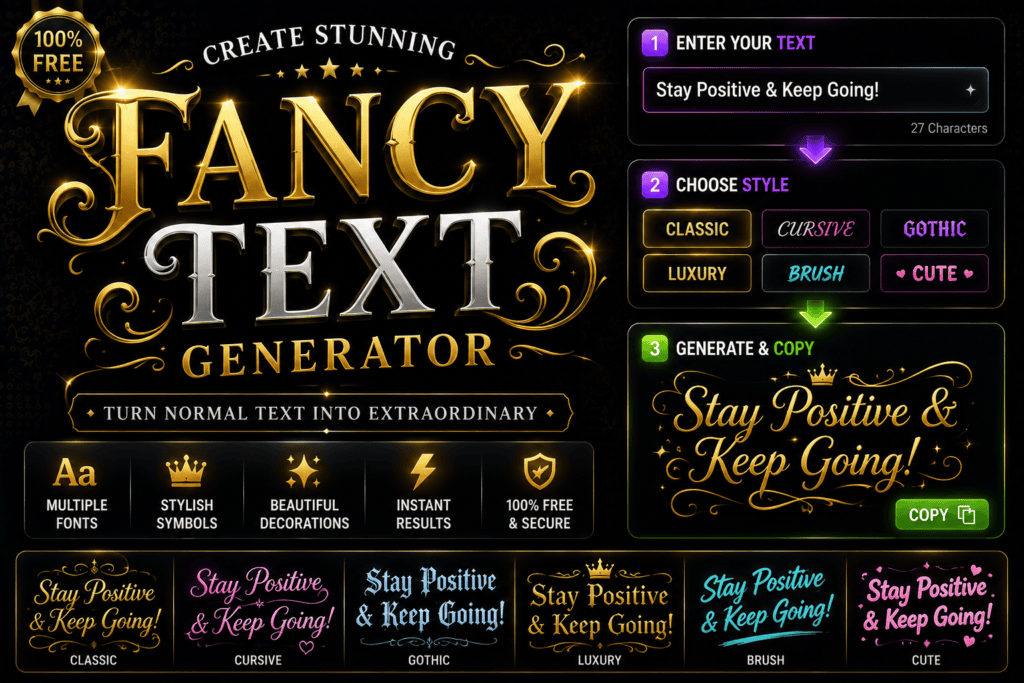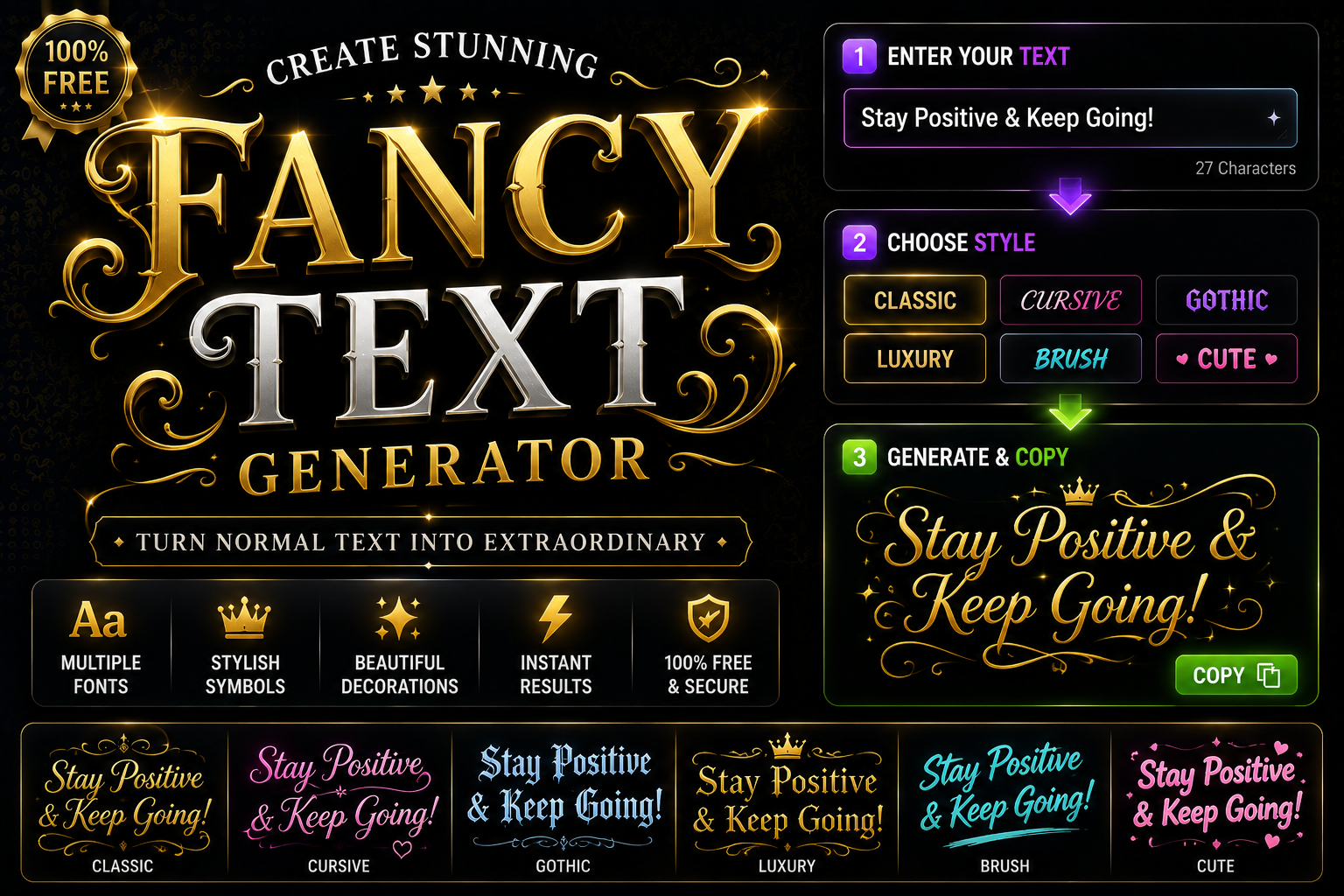
✨ Fancy Text Generator
Type your text below to instantly convert it into elegant, aesthetic, and cool fonts for social media.
Modern digital communication feels deeply sterilized. Standard text across corporate devices strips away raw human identity, forcing us to adopt coded representations. That is why a chaotic glitch aesthetic offers genuine psychological liberation right now.
From my engineering experience, users mistakenly assume software downloads new files. Instead, hidden Unicode structural encoding reinterprets basic alphanumeric systems. Manipulating this systemic architecture lets us instantly manifest gothic styles onto any modern web platform.
Subverting default design disrupts human cognitive patterns. When audiences browse an ordinary Instagram feed, encountering creepy or zalgo arrays forces deep visual breaks. This mechanical generator phenomenon alters how online communities process language right away.
What is a Font Generator & How it Works (Unicode Explained)
Contemporary environments exhibit distinct characters whereby Unicode assigns values for each glyph. A software tool or native Generator utterly fails to modify data. It swaps specific plain, regular keystrokes into unusual symbols producing mock fonts.
Operators frequently convert basic data for gaming handles or social hangouts. Merely copy such mathematical conversions plus paste outputs anywhere remotely. The resulting stylish text stays entirely legible throughout different ecosystems including global websites.
Technically, Since target hardware lack installable fonts for exotic mutations, architectures glance towards that widespread library. Activating a specific style enables users to type normal prose thereby instantly producing unique visual designs for their projects.
How to Use the Font Generator (Step-by-Step Guides)
Digital identity shapes online reality. Instantly transforming your standard website presence requires deep psychological intent rather than complex coding. Type selected phrases directly into the box area. Watch how multiple strange styles suddenly appear here.
Contrarian creators skip generic formatting to influence platform algorithms. Click the desired aesthetic variation that matches your energetic frequency. Copy the altered text structure immediately. This sudden structural disruption changes how human eyes perceive messaging.
Paste these customized symbols anywhere you truly want, including Twitter or inside a Discord chat room. The next step involves evaluating audience engagement metrics. Your input modifies standard communication layouts into unique personal artistic expressions.
Where to Use Fancy Fonts (Platforms & Use Cases)
Deploying aesthetic fonts across Instagram bios or TikTok comments instantly grabs reader attention. My digital marketing work proves bold usernames amplify personal branding, making everyday communications distinct within modern crowded social media app platforms today.
In Gaming Communities, stylized clan names and custom usernames give a unique edge. Players across Steam or Discord use cursive or Gothic text styles for gaming tags, making boring profile designs stand and shine completely.
For offline creativity, Business design teams embed elegant typography within promotional ads or email campaigns. Integrating calligraphy into wedding invitations or custom tattoo art helps announcements capture maximum impact, ensuring important information remains still readable.
Accessibility Considerations
Screen readers fail completely because assistive tools view stylized text as mathematical symbols rather than actual words. This unsupported behavior destroys content readability across diverse devices, making user inclusion an Important obstacle for modern digital technologies.
In my professional experience, visually impaired users hear absolute gibberish when custom characters are parsed. These different abstract symbols confuse older synthesizers, rendering beautiful text completely inaccessible unless web designers prioritize strict semantic accessibility standards.
Excluding large audiences occurs accidentally when platform text transforms into chaotic unreadable blocks. When People navigate modern online portals, encountering broken glyphs on popular websites proves that decorative aesthetics frequently damage core software application interfaces.
Compatibility Considerations
Total systemic failure happens when recipient devices lack underlying font support. Achieving seamless cross-platform compatibility remains elusive, as specific apps cannot render unusual Unicode strings correctly everywhere, resulting in blank rectangles instead of intended messages.
Operating systems interpret data differently, breaking visual consistency. An iPhone displays stylized scripts beautifully, However a legacy Windows machine or alternative Android device may fail, exposing deep rendering gaps across distinct mobile and desktop ecosystems.
How Do I Use the Font Generator?
Modern typographic design demands structural subversion. Instead of typing normally, experienced creators input raw TEXT directly into the interface, executing a strategic click to instantly transform mundane data. Your online clipboard opens a new box.